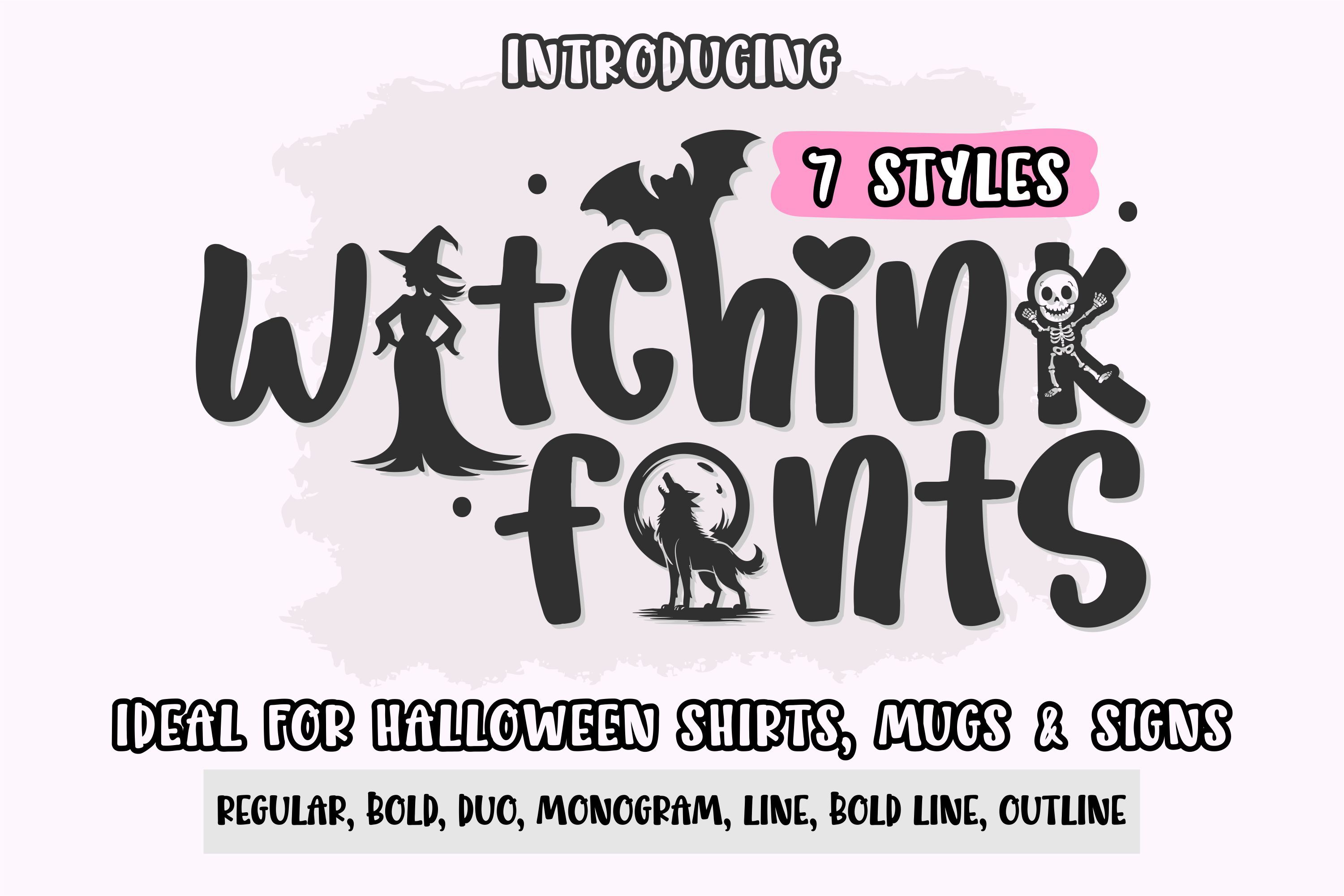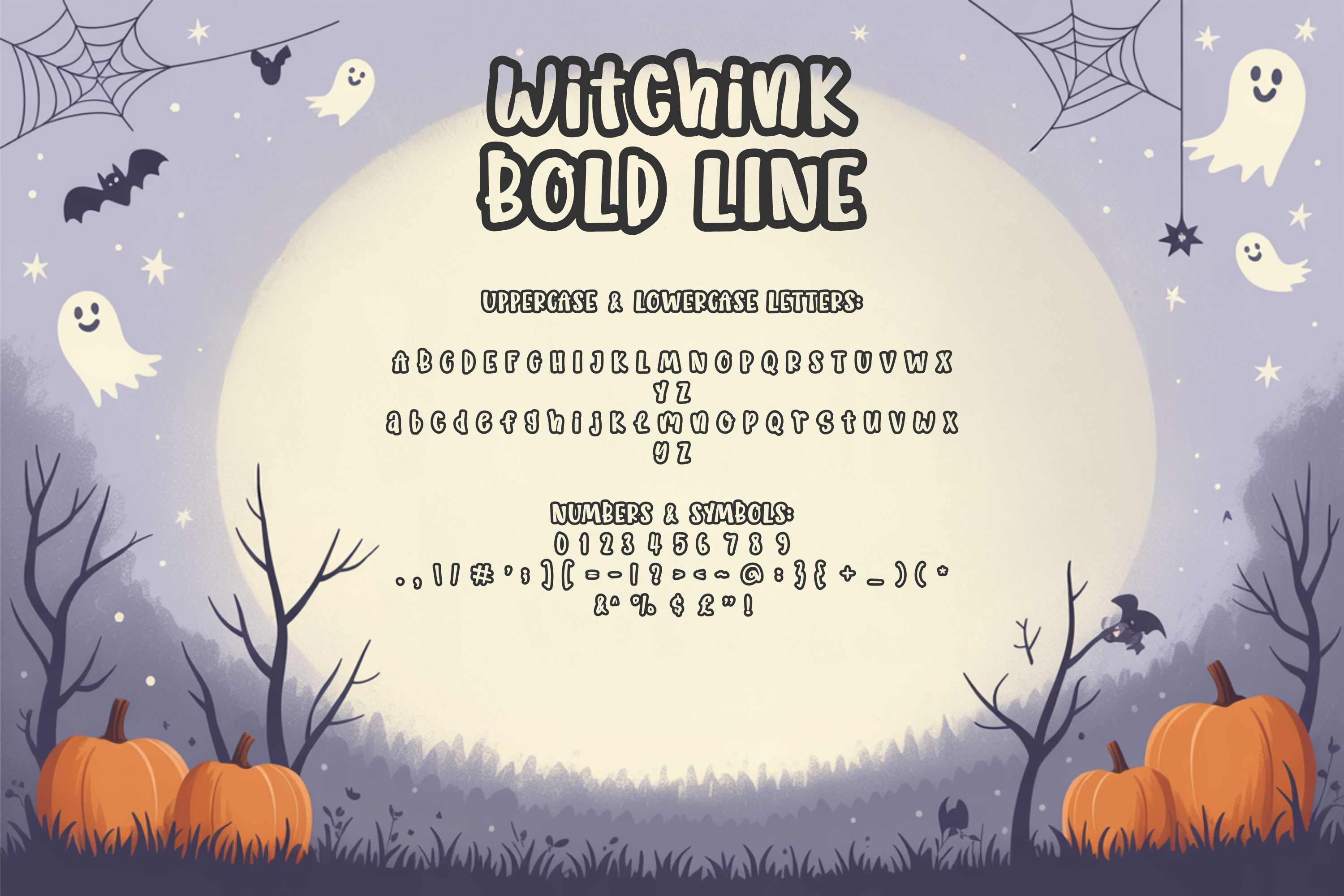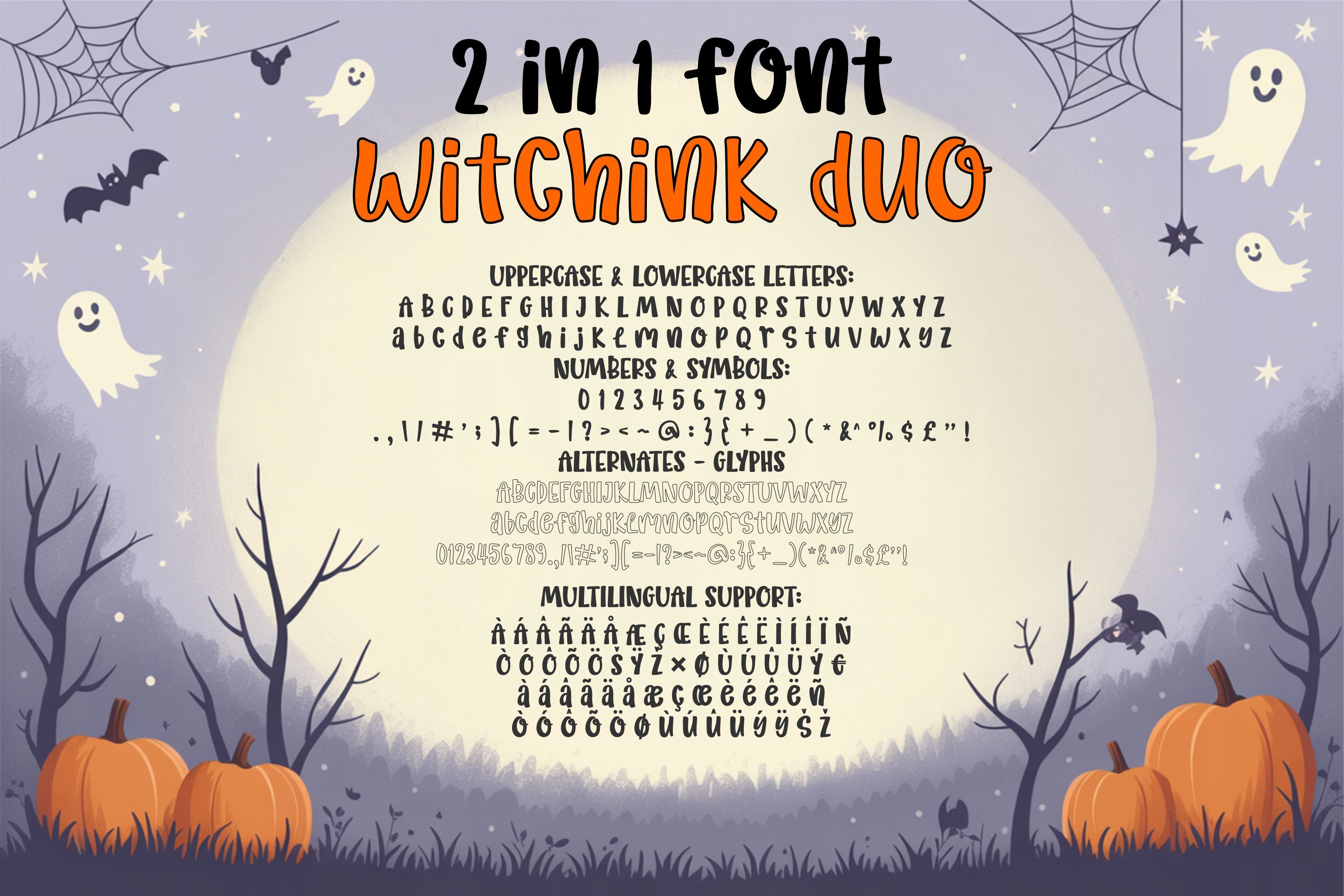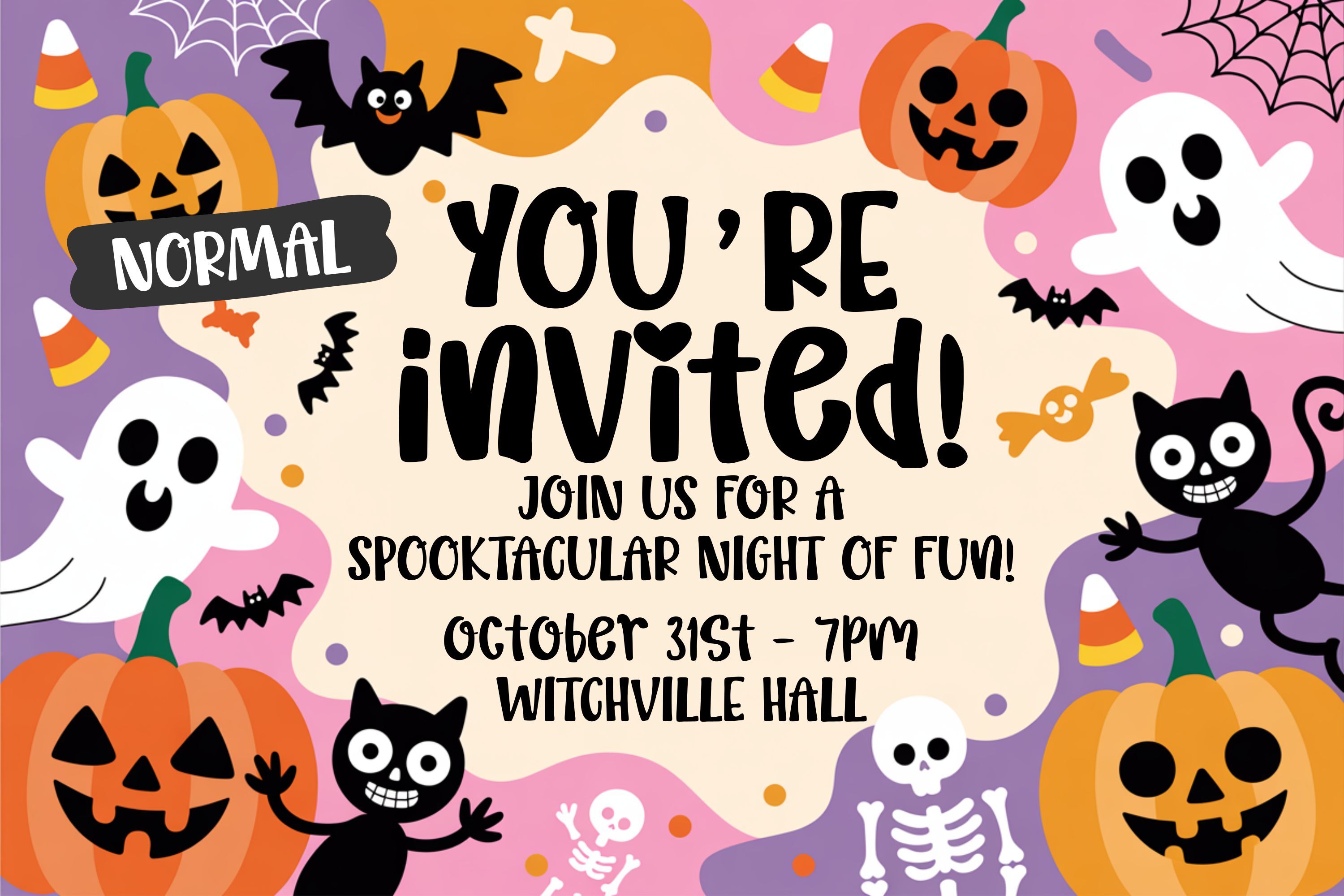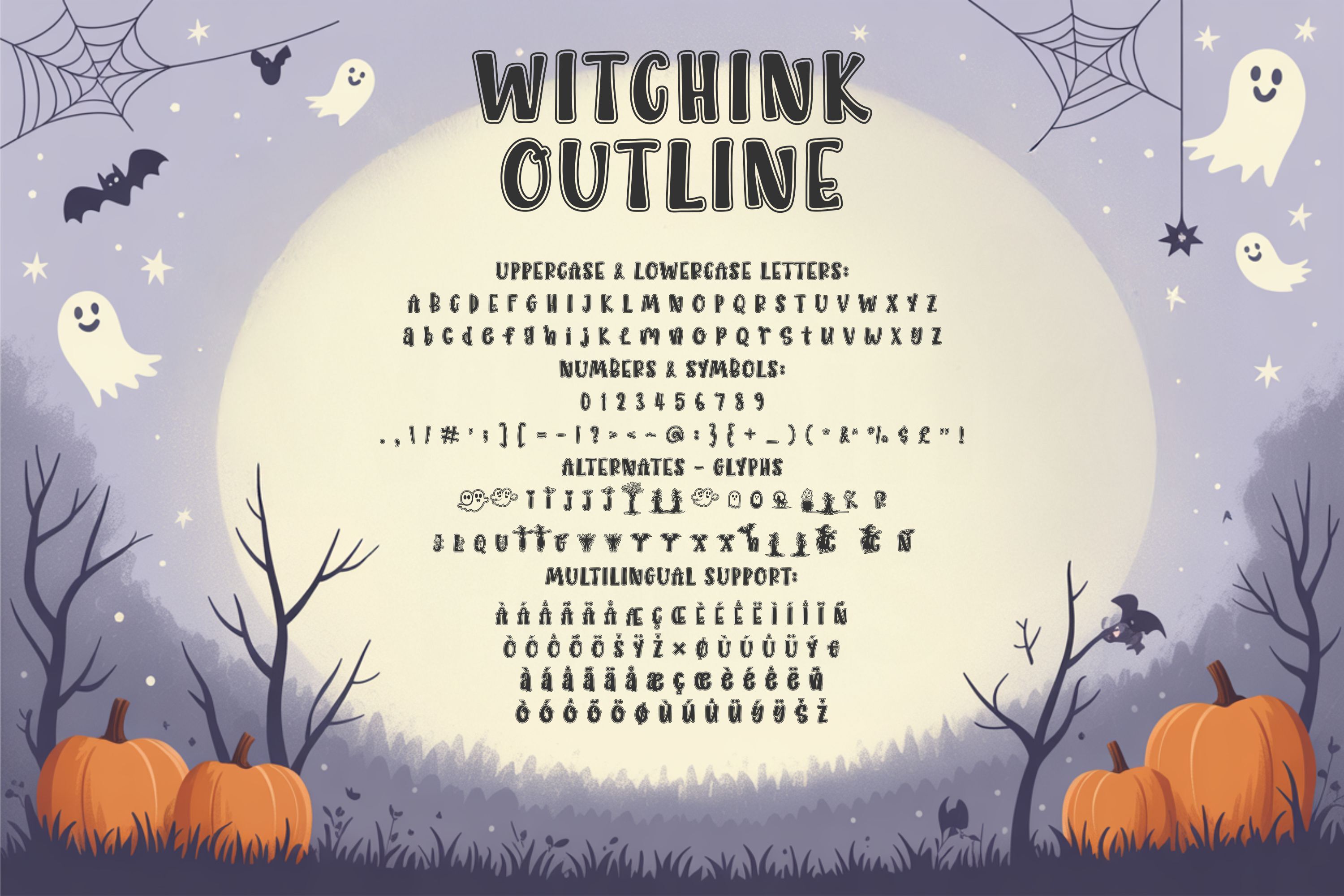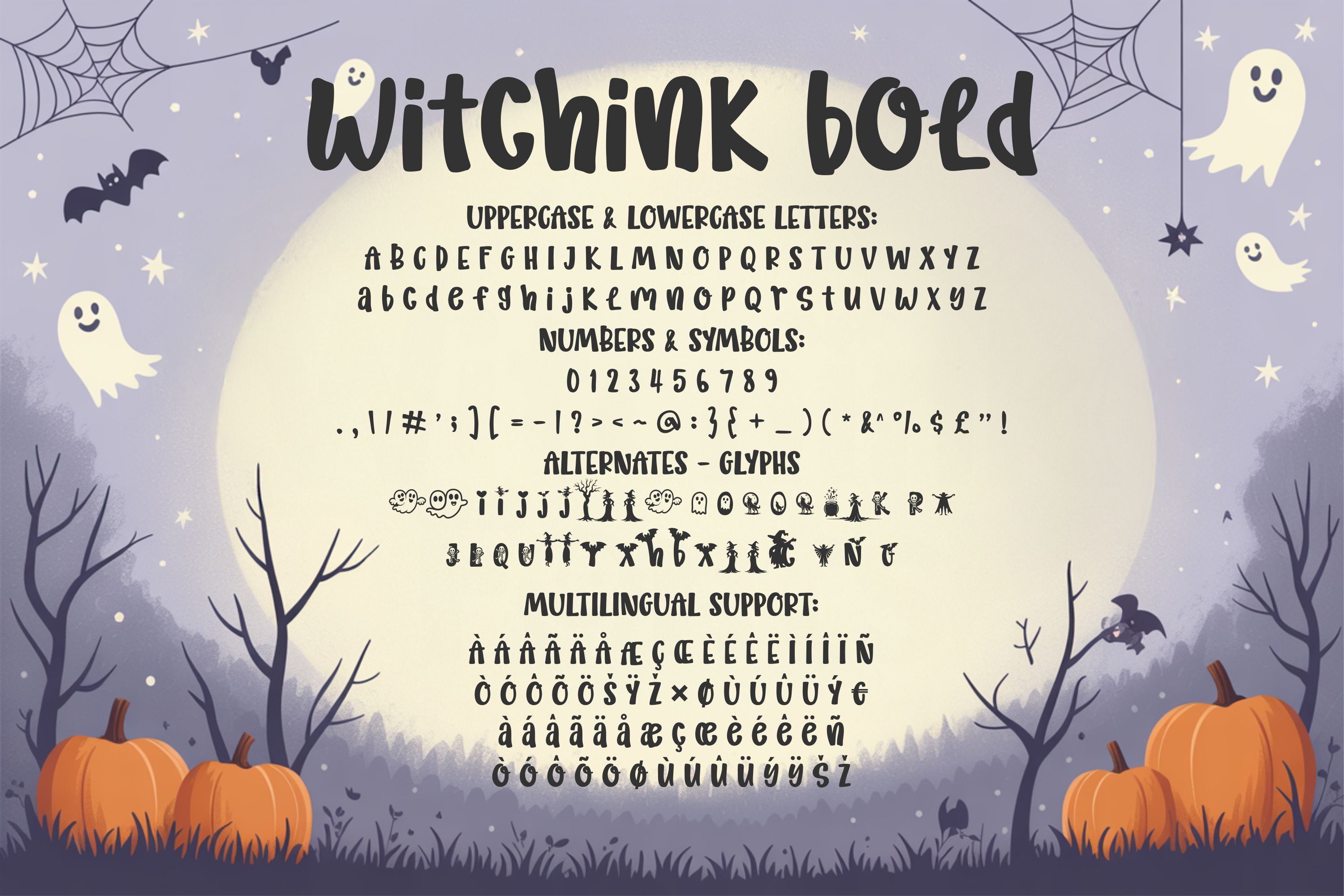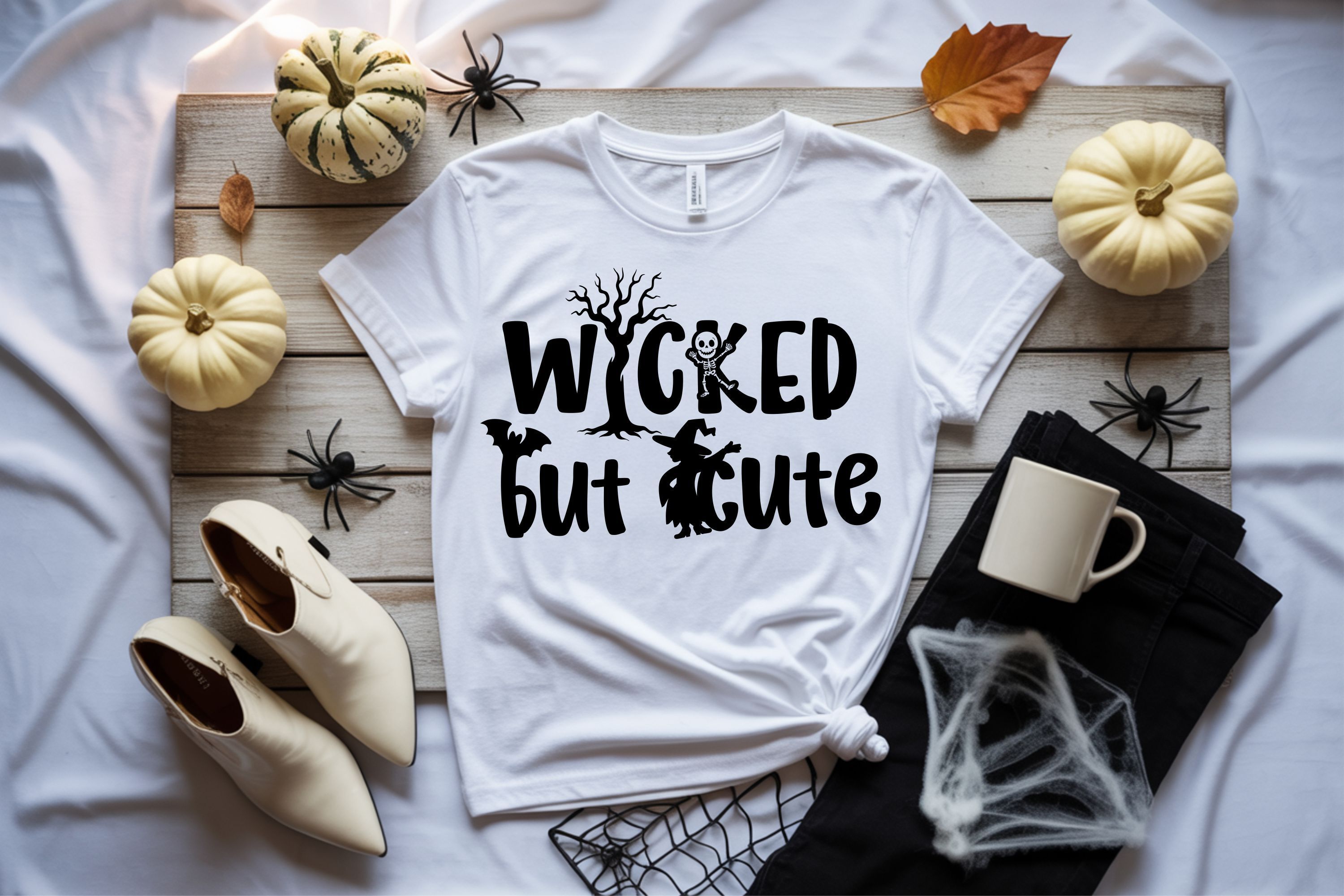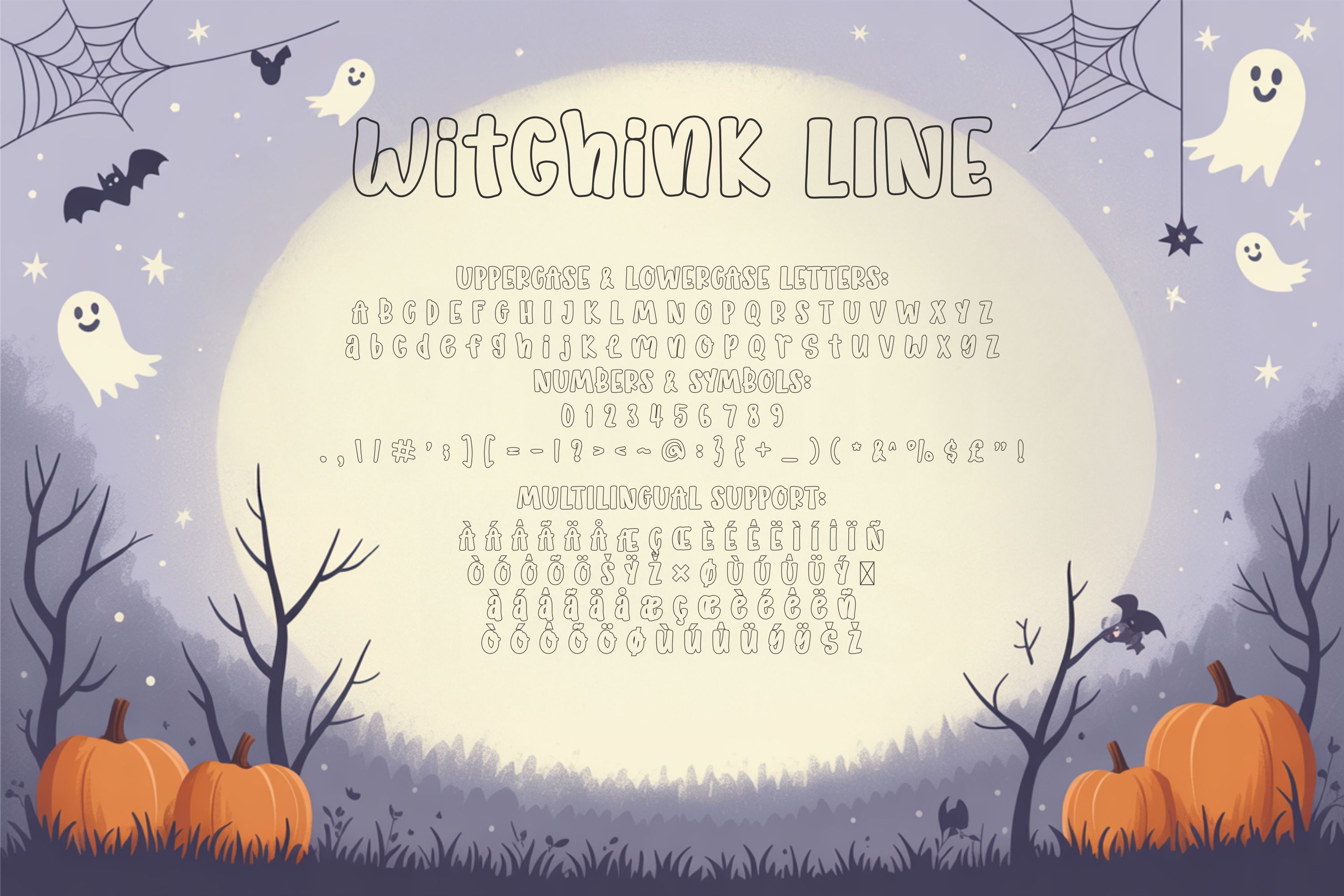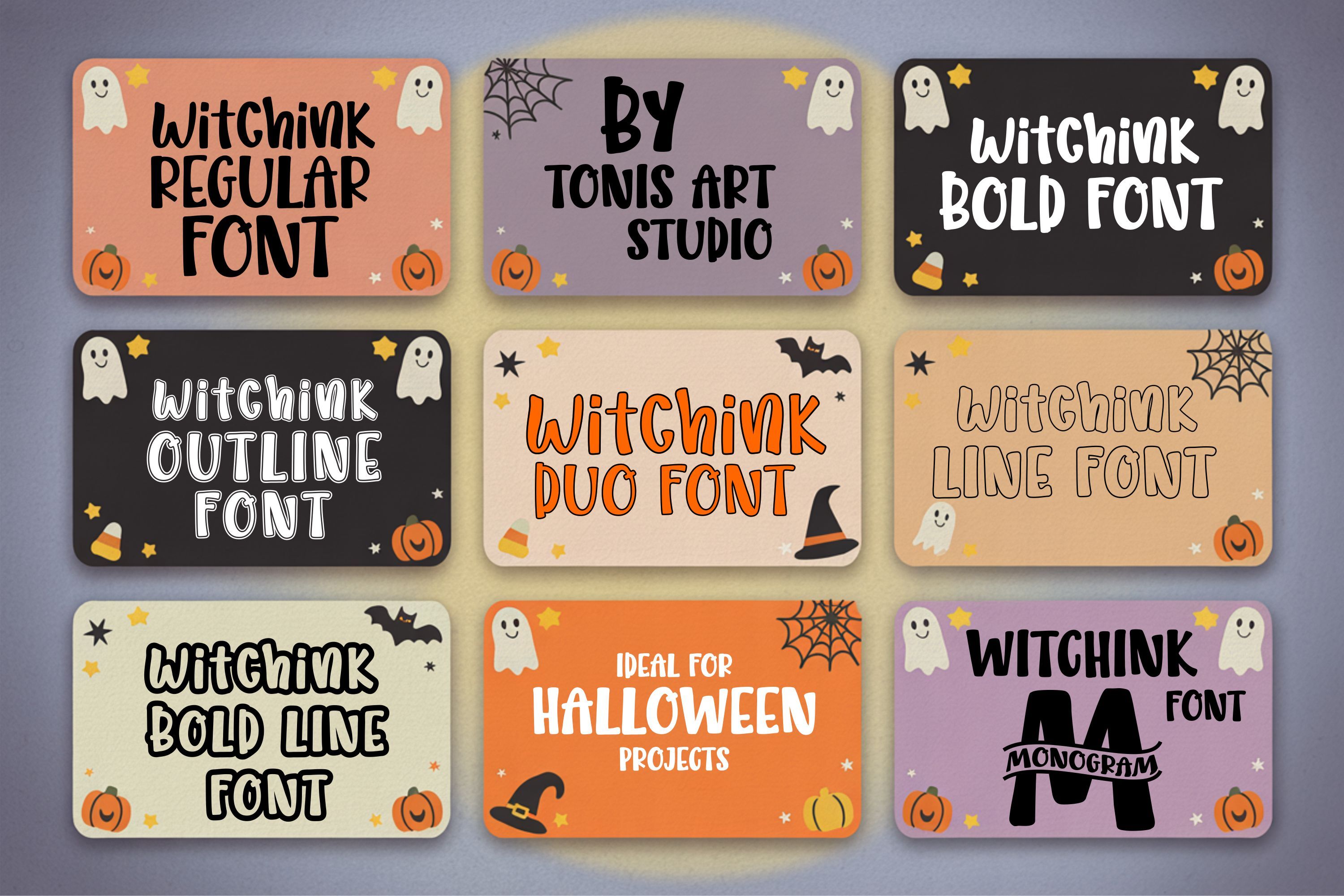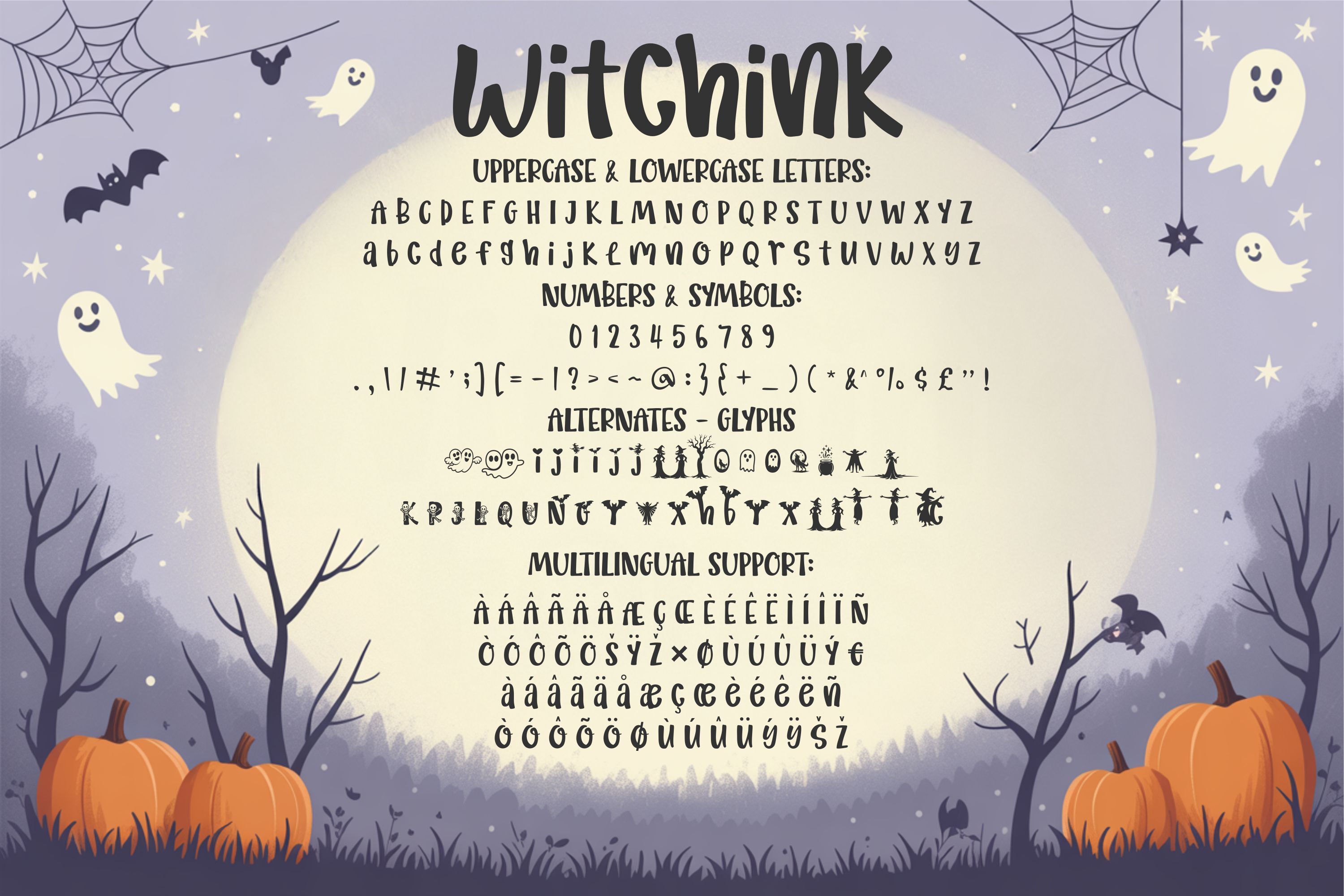
Witchink is a playful handwritten font bundle designed to bring spooky-cute vibes to your Halloween creations. This bundle includes 7 styles: Regular, Bold, Duo, Line, Bold Line, Outline, and Monogram – all in OTF and TTF formats for easy use. It also features 36 Halloween-themed glyphs like witches, bats, ghosts, skeletons, and pumpkins to spice up your words with creative flair. Ideal for Cricut projects, sublimation, party invitations, t-shirts, mugs, signs, printables, and social media graphics. With multilingual support and alternate decorative characters, Witchink is perfect for both personal and commercial use. Compatible with Canva, Procreate, Silhouette Studio, Adobe Illustrator, and Photoshop. Whether you're designing for kids or for eerie Halloween decor, this font bundle adds a touch of fun and spooky charm to any project. Download Witchink today and bring your Halloween designs to life with character!
Witchink Font Bundle Cute Halloween Handwritten Fonts Pack